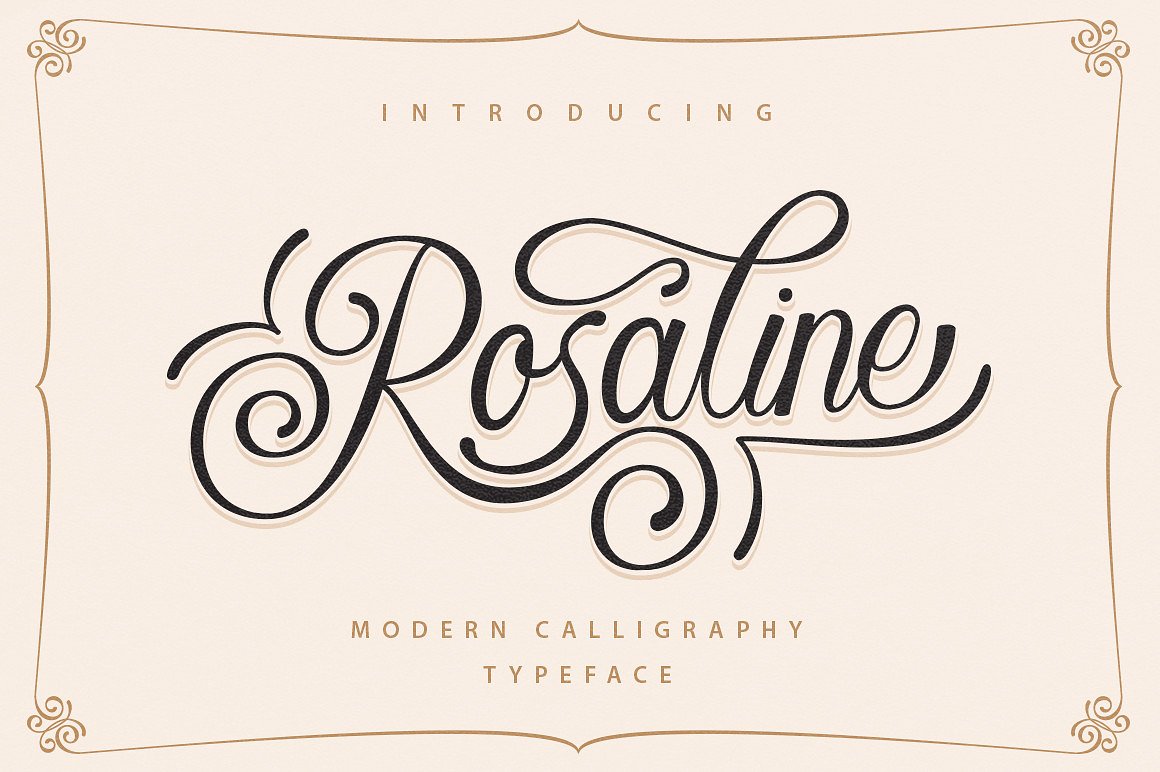
Rosaline Script Font
Rosaline Script Font is perfectly suited for elegant wedding invitations, romantic greeting cards, luxury beauty brand logos, feminine boutique signage, love letter designs, vintage-inspired packaging, sophisticated social media quotes, personalized stationery, and heartfelt celebration materials.
What makes Rosaline Script Font so exciting is its enchanting romantic elegance and flowing script beauty that captures the essence of timeless love and feminine grace in every delicate letterform. This exquisite typeface embodies the romance of handwritten love letters with its graceful curves and sophisticated flourishes that seem to dance across the page with poetic rhythm. The font's delicate character shapes and elegant proportions create an atmosphere of intimacy and refinement that resonates with audiences who appreciate the beauty of romantic expression and feminine artistry. Rosaline Script Font stands out through its ability to convey love, elegance, and romantic sophistication, making it perfect for projects that need to establish emotional connections while creating memorable experiences that celebrate the beauty of love, romance, and feminine grace.
The Rosaline Script Font family includes Regular and Bold weights, each maintaining the font's distinctive romantic character while providing design flexibility for various elegant applications. The family also features decorative swashes, connecting ligatures, and ornamental flourishes that enhance the font's romantic appeal and provide comprehensive solutions for sophisticated script design projects.
The technical craftsmanship of Rosaline Script Font includes an extensive character set with uppercase and lowercase letters, numerals, punctuation marks, and romantic symbols that maintain the font's elegant script character. The font incorporates advanced OpenType features including contextual alternates and connecting ligatures that create seamless script flow, ensuring text appears naturally handwritten rather than digitally constructed.
Whether you're designing wedding materials, creating romantic branding, developing beauty product packaging, or crafting designs that need to convey love and feminine elegance, Rosaline Script Font delivers the perfect combination of romantic authenticity and contemporary functionality that makes your projects emotionally resonant and visually beautiful for audiences seeking genuine romantic expression and timeless elegance.